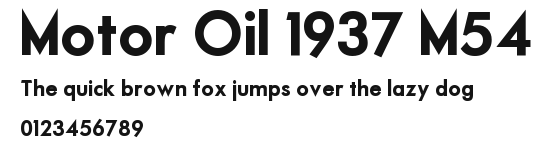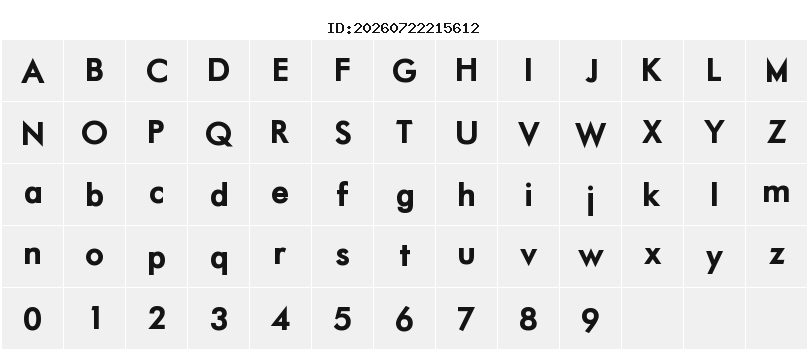
• Font Name: Motor Oil 1937 M54
• Designer: Mohammed Rahman
• Manufacturer: M54 (justme54s)
About Motor Oil 1937 M54.ttf
Motor Oil 1937 M54.ttf is a modern, elegant sans-serif font designed for ultimate readability and visual harmony. Perfect for branding, headlines, web design, and print materials.